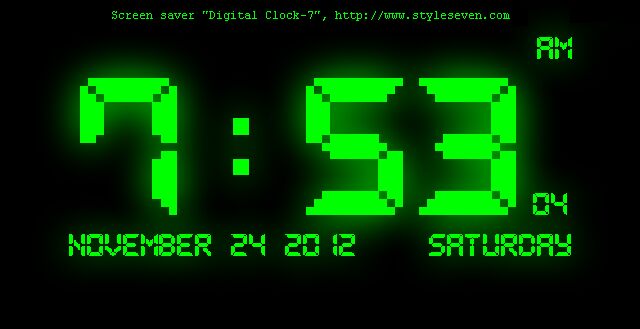
Pixel LCD-7 by Style-7 is a free digital display font with the broad proportions and hard-edged geometry of an LCD readout. Wide letters stretch horizontally, interrupted by narrow breaks and clipped joins. The forms feel mechanical but unusually expansive.
Its retro electronics character suits arcade game interfaces, technology posters, and music packaging with a hardware theme. On event graphics or merchandise, the lettering can become part of a circuit-board or control-panel illustration rather than serving as ordinary text.
Pixel LCD-7 by Style-7 is a free digital display font with squared proportions and clipped joins characteristic of early LCD lettering. Several strokes contain small gaps.